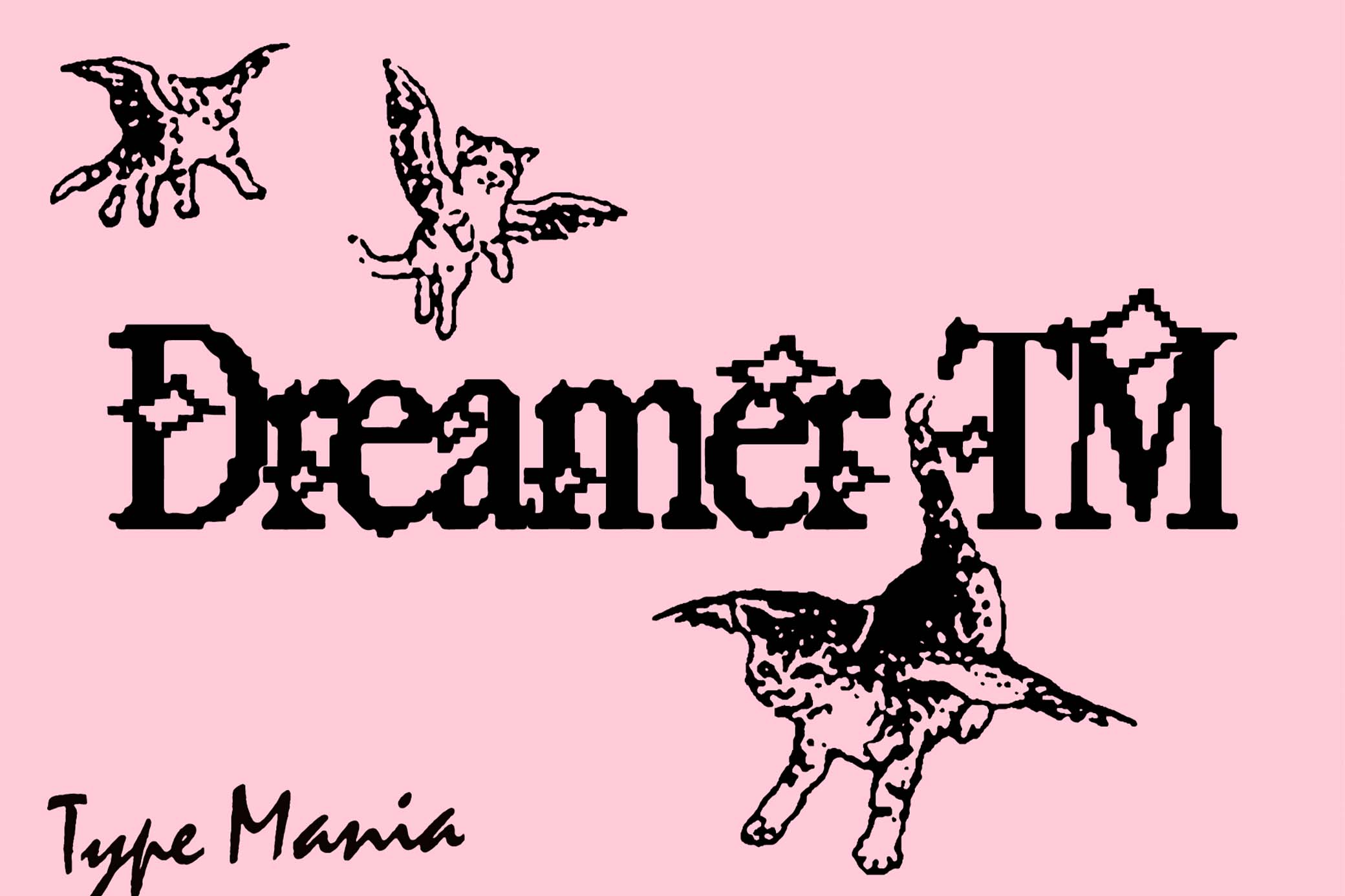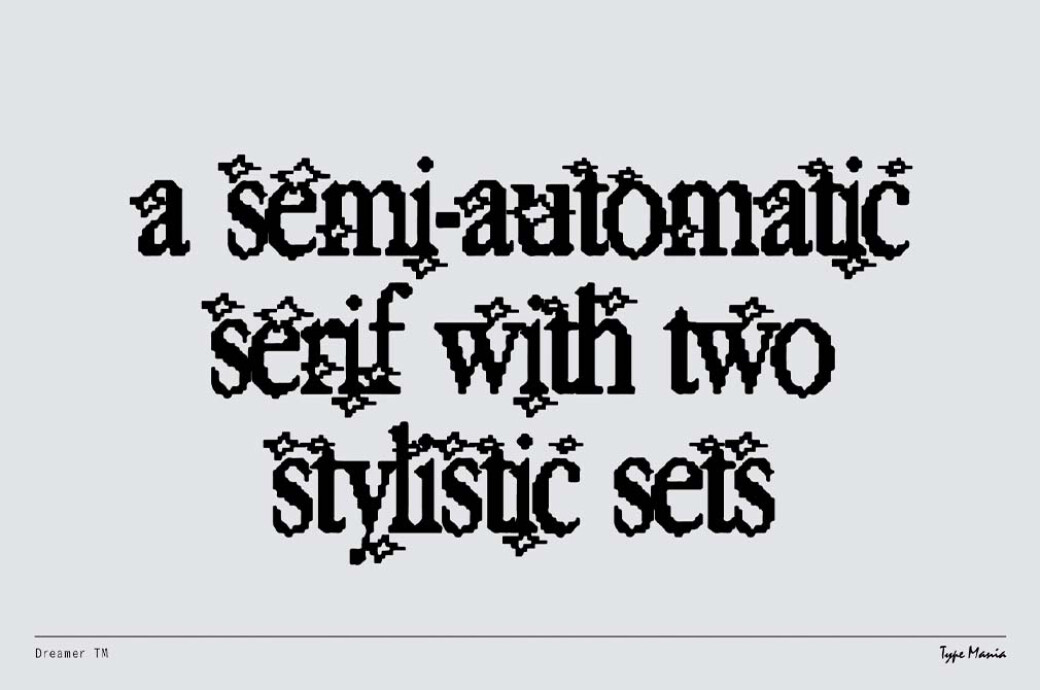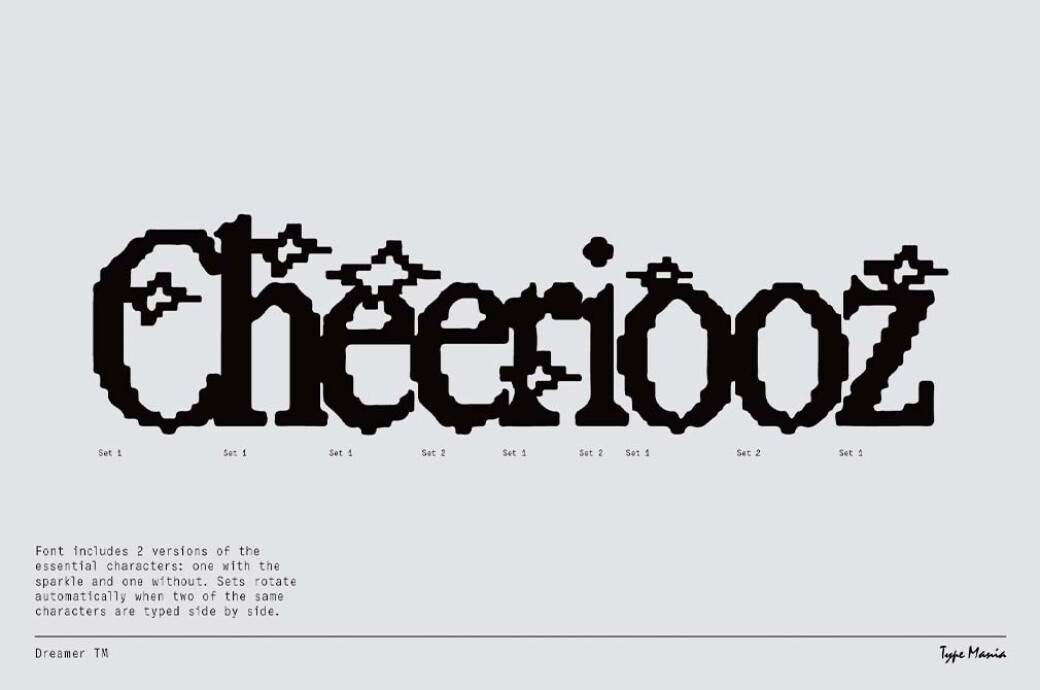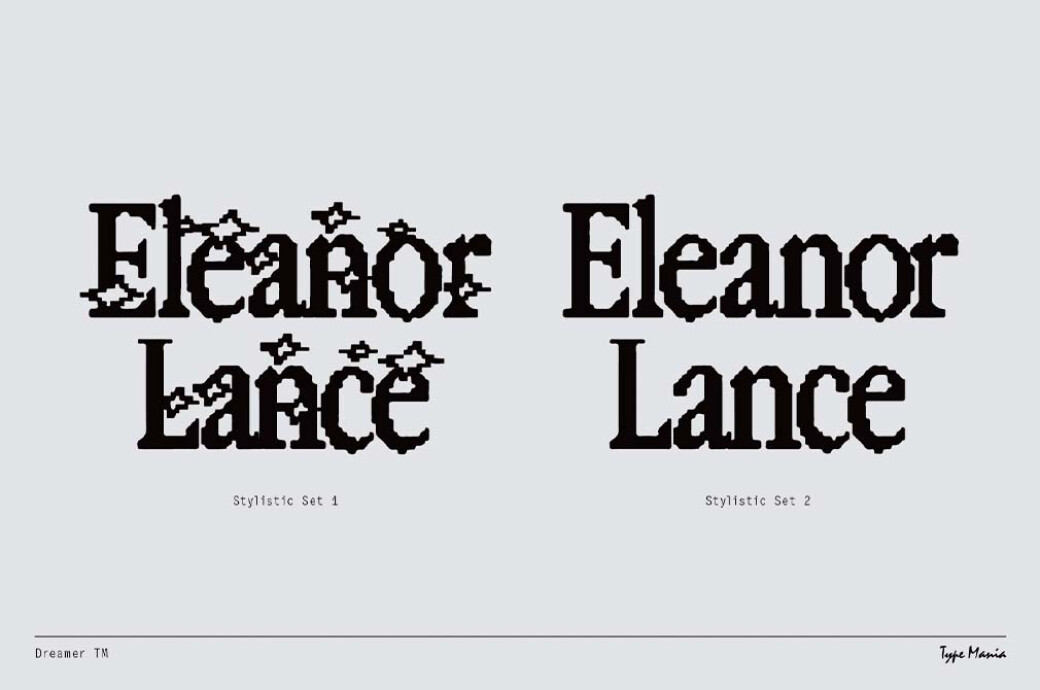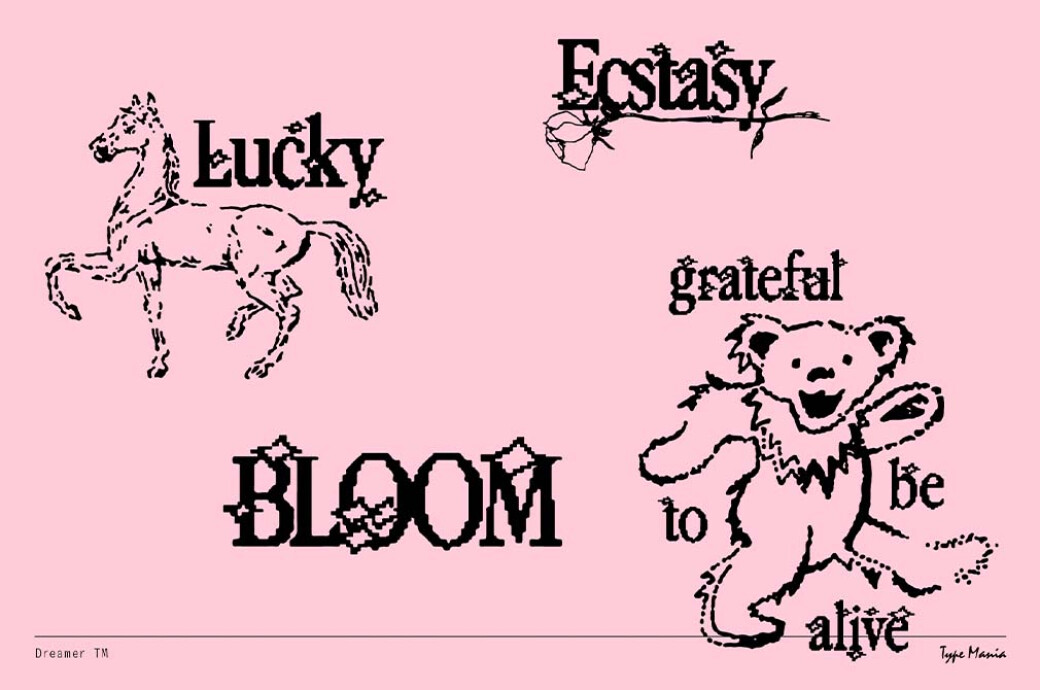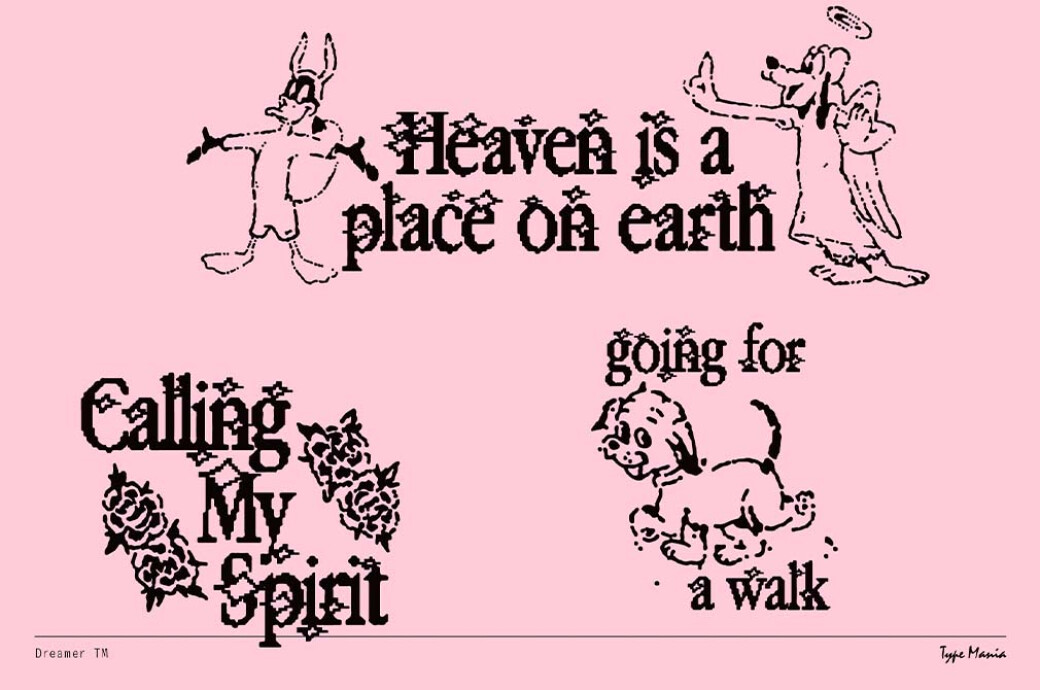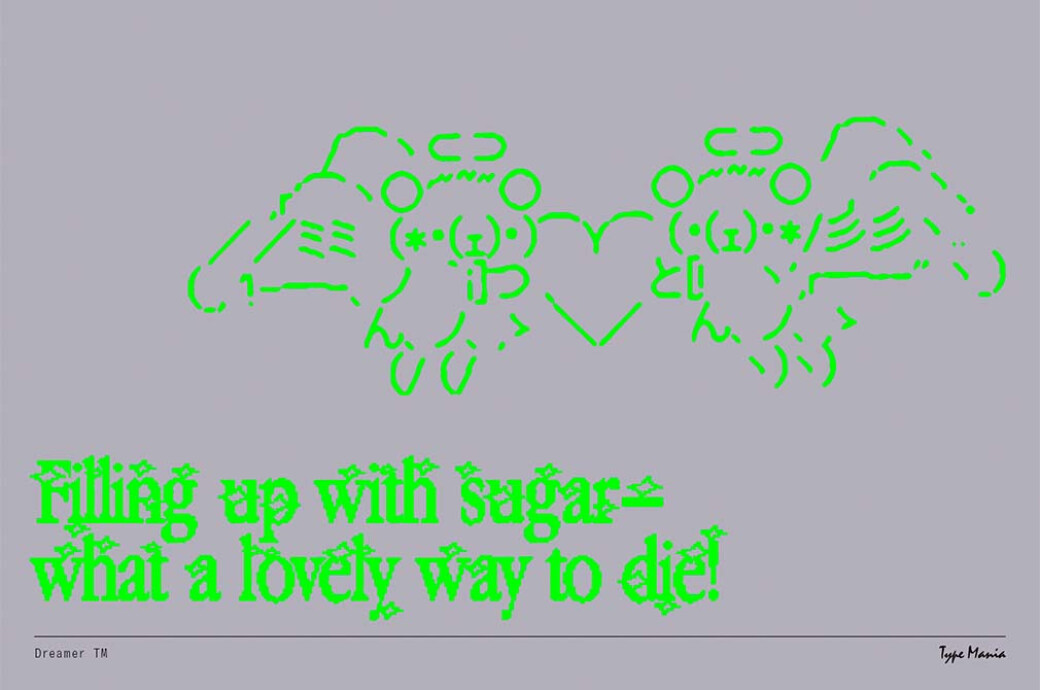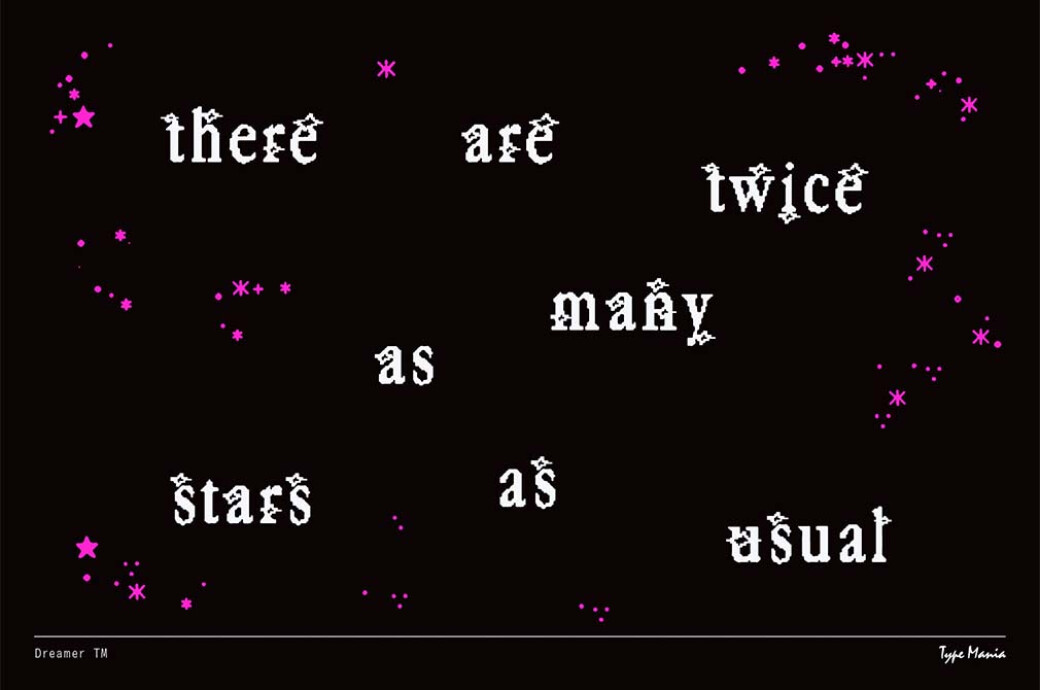
Dreamer TM | Y2K Pixel Font
Ugly pixels and Nokia 3310 graphics have taken an artistic twist after two decades of oblivion. Not only do they play the lead in mixed media, but in typography too — and here they feel even more old-school.
Meet Dreamer TM—a genuine daydream of Y2K-holics who want the retro vibe as intense as possible. Indeed, what can be more authentic than pixels and a monochrome phone screen? The font includes a complete character set, plus international characters and 2 stylistic sets. It is programmed to automatically shift between the stylistic sets whenever the same glyphs are typed side by side